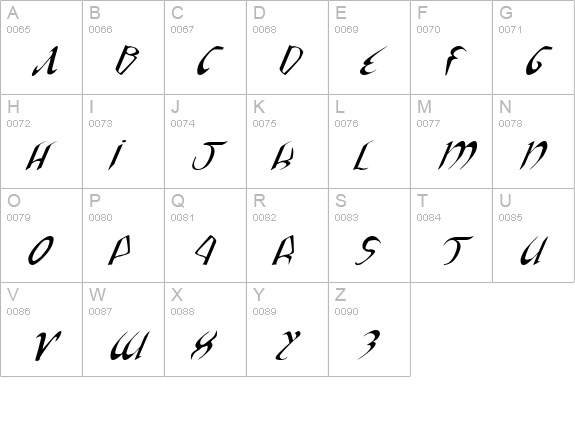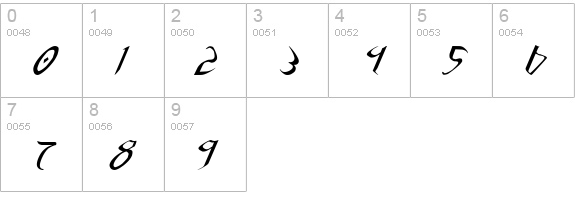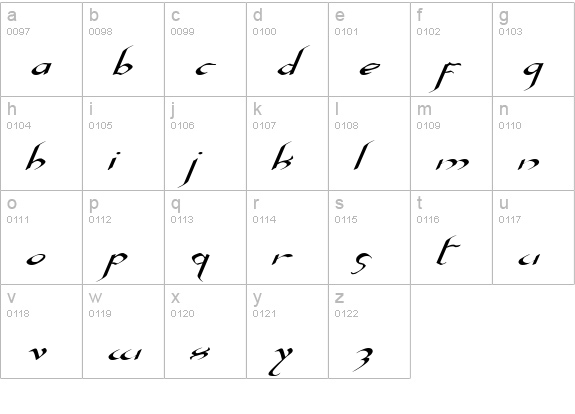
Xaphan Expanded Italic is a distinctive, extended-width, italic variant in the Xaphan typeface family \xE2\x80\x94 well suited to design and typography projects.
Xaphan Expanded Italic font is a modern and stylish typeface that exudes sophistication and elegance. Its sleek and elongated letterforms create a sense of movement and fluidity, making it perfect for projects that require a touch of sophistication. The italicized design adds a dynamic flair to your text, making it stand out and grab attention. What sets Xaphan Expanded Italic font apart is not just its striking design, but the fact that it is available for free download at FontsMarket.com. This means that you can easily access this unique font and use it in your projects without any cost involved. Whether you're working on graphic design projects, branding materials, or any other creative endeavor, Xaphan Expanded Italic font is a versatile choice that will elevate your work to new heights. Don't miss out on this opportunity to add a touch of elegance to your designs with this free font.